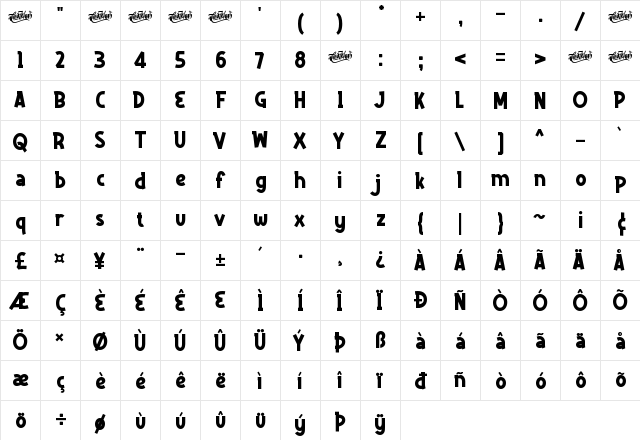
Delninoys Regular
| Designer | Almarkhatype - Abdul Malik - Adriansyah |
Design Context for Delninoys Typeface
Delninoys takes a measured approach to typography — its balanced proportions and neutral character make it a reliable workhorse for both digital and print work.